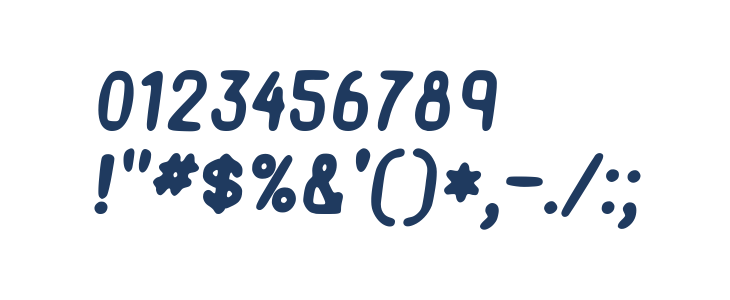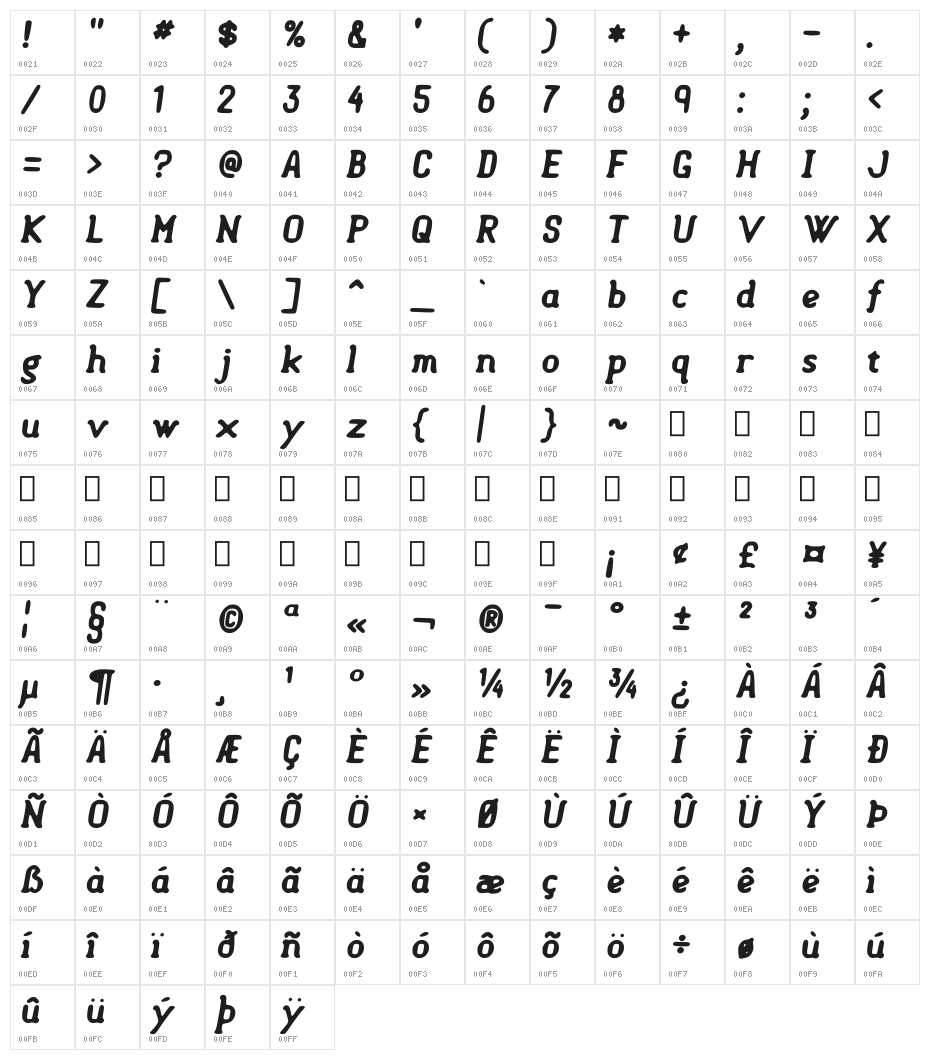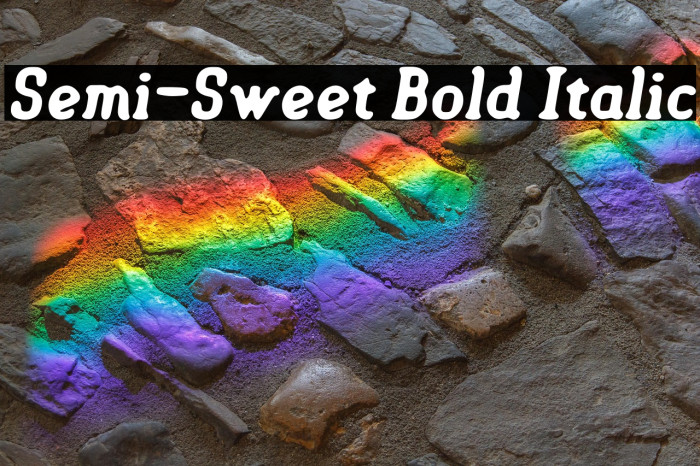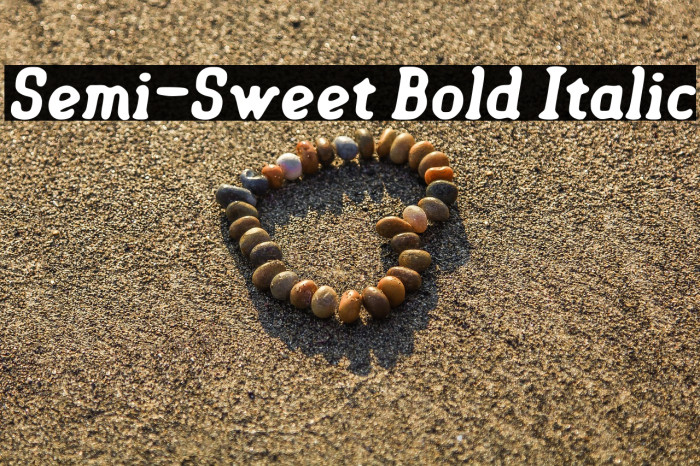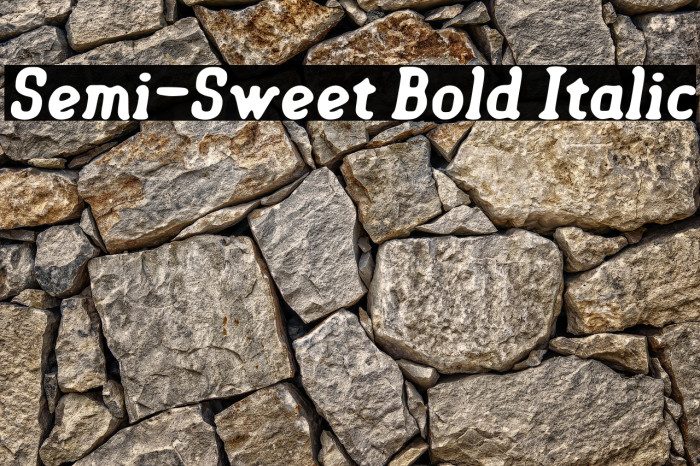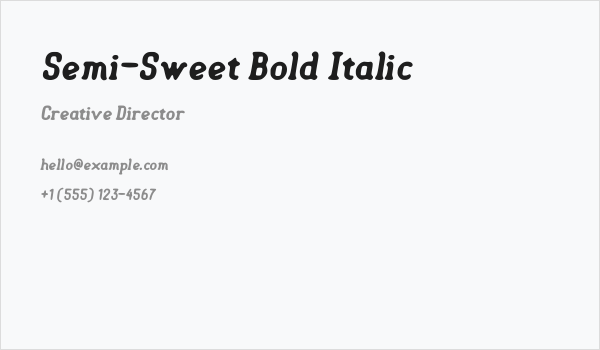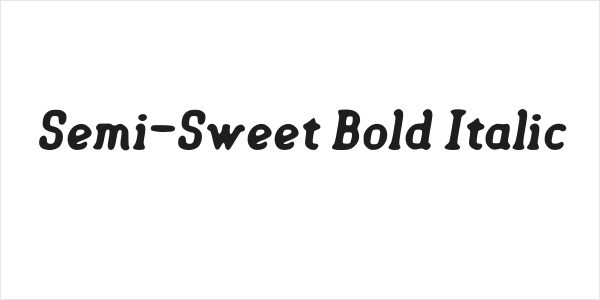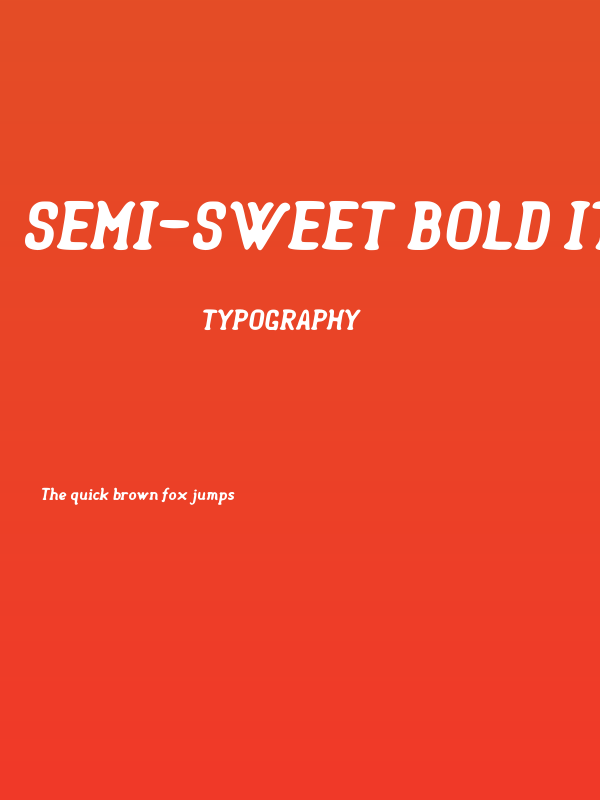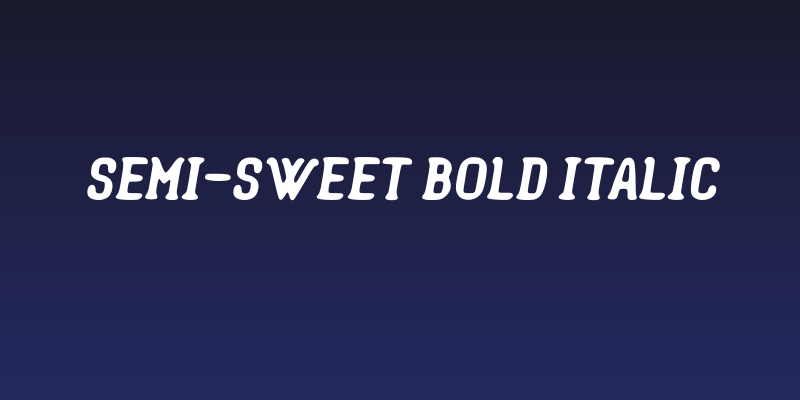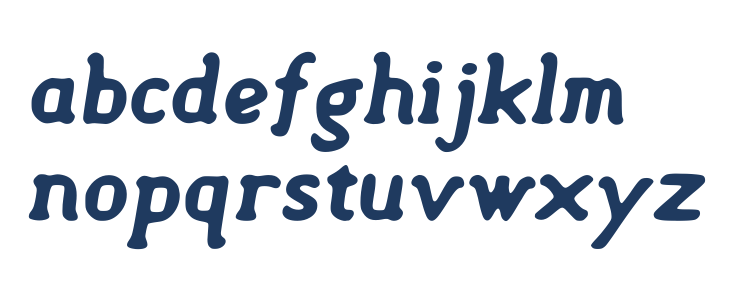
Semi-Sweet Bold Italic Font
Semi-Sweet Bold Italic Description
This font features a bold and italic style with a playful and rounded appearance. The characters are slightly slanted, adding a dynamic and energetic feel. The strokes are thick and consistent, providing a strong visual impact. The rounded edges soften the overall look, making it approachable and friendly. The uppercase and lowercase letters maintain a uniform style, while the numerals and special characters are designed to match the font's bold and lively aesthetic. This font is well-suited for projects that require a touch of whimsy and boldness.
| Overall Style | Playful, Energetic |
| Proposed Projects | Ideal for children's books, playful branding, posters, and creative headlines. |